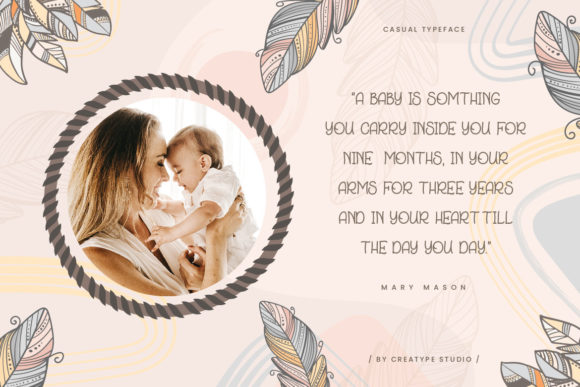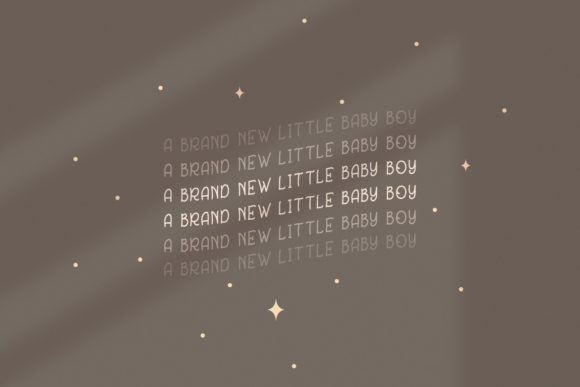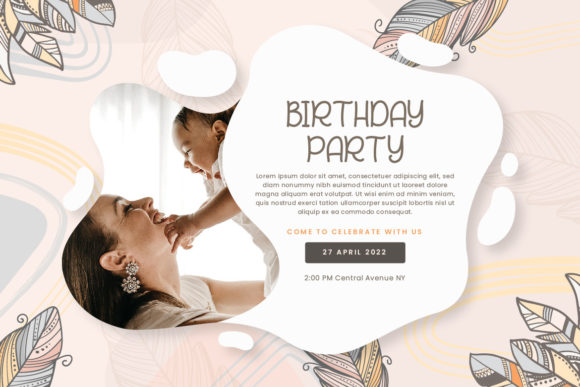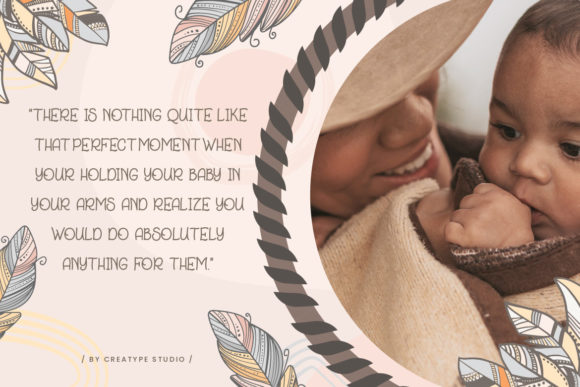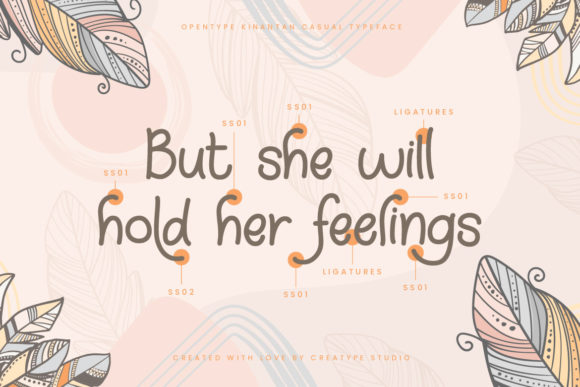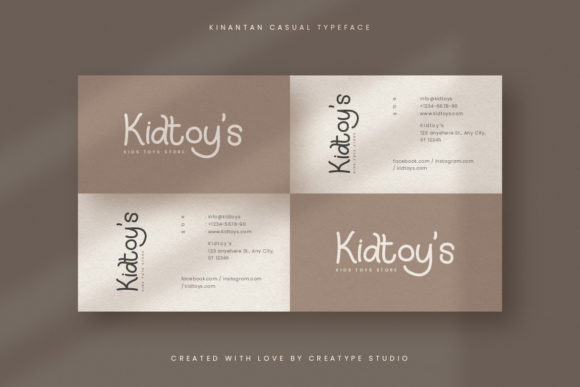
Kinantan Font – Free Download
Introduction to Kinantan Font
Kinantan is a cute and casual lettered handwritten font that can be used for all chalkboard quotes or teaching material.
Its authentic look will add a personal and realistic feel to your designs .
Key Features of Kinantan Font
Why Choose Kinantan Font?
Kinantan Font offers exceptional quality and versatility, making it a valuable addition to your design toolkit. Whether you’re creating for personal projects or commercial use, Kinantan Font delivers professional results.